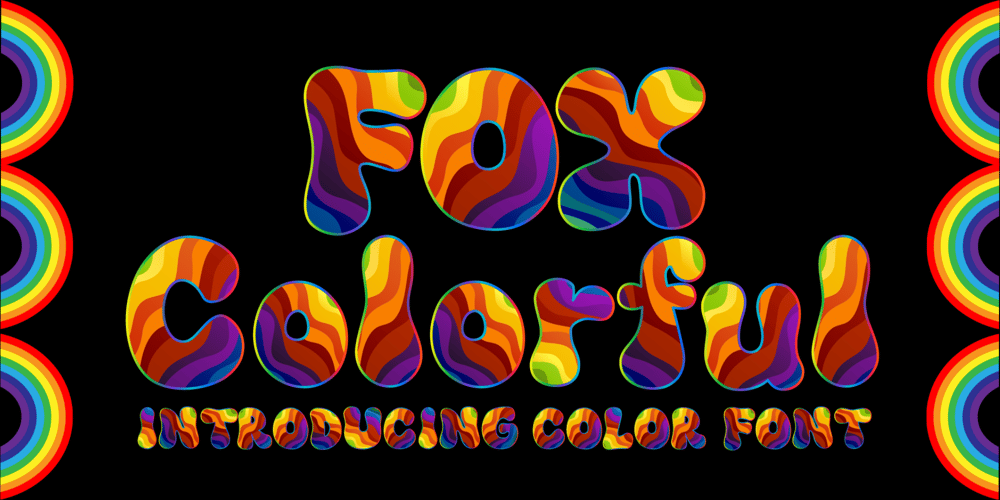
Fox Colorful
Fox Colorful font
Fox Colorful Font Family was designed by Rattana Rattanawan and published by Fox7. Fox Colorful contains 1 styles and family package options. Fox Colorful is a fun and cool color font. Fall in love with its authentic feel and use it to create gorgeous invitations, beautiful stationary art, eye-catching social media posts, and cute greeting cards. Design your product using this unique font and share your project for others to be inspired by your work!Learn more about color font support on third-party apps here: https://www.colorfonts.wtf/๐ŸŒบ๐ŸŒบ Please note that Canva does not support color fonts! ๐ŸŒบ๐ŸŒบ